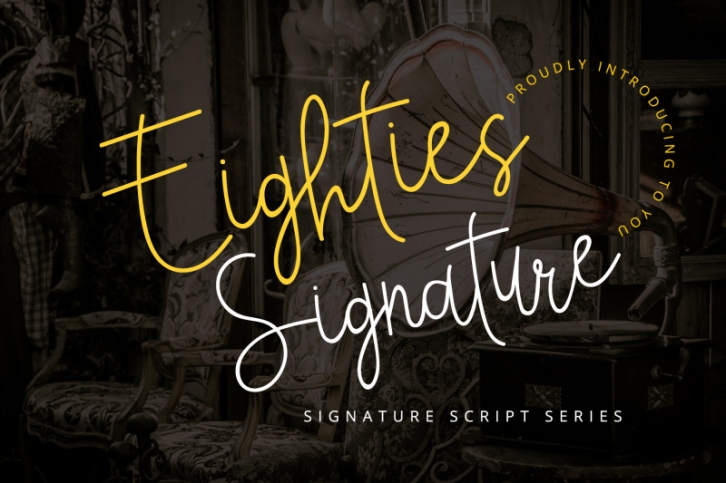
Eighties Signature is simple and authentic handwritten script that will make your design into the next step. There is vintage touch in modernity.
Eighties Signature suits for any kind of your project, such as advertisements, branding, graphic design, quotes, wedding design, logo for online or offline business, photography, and others.